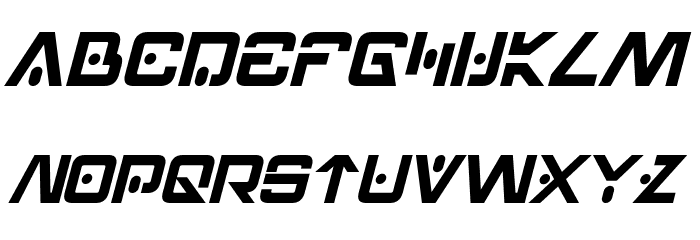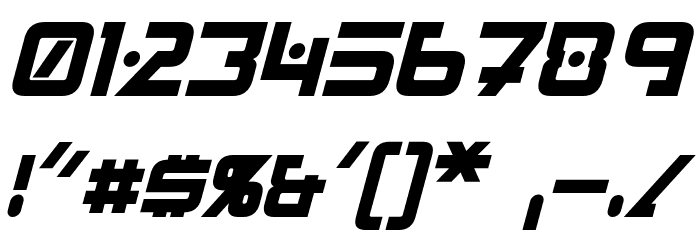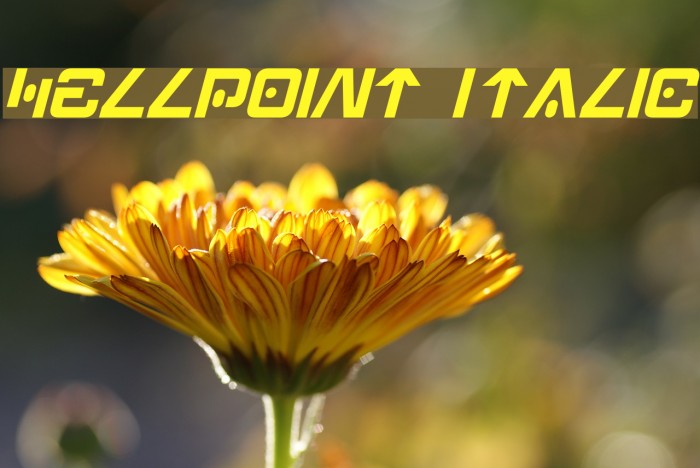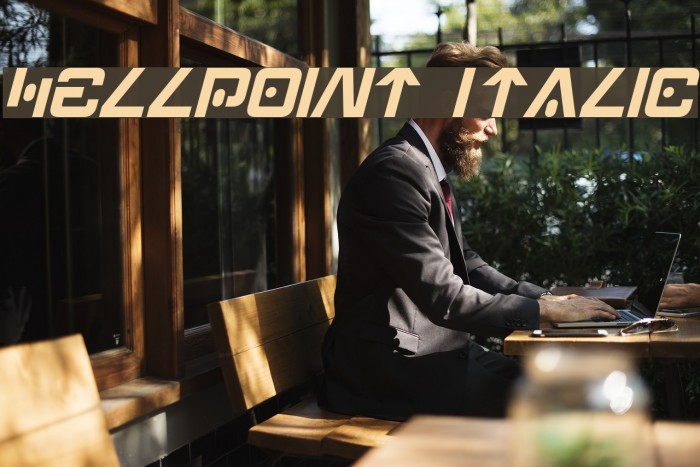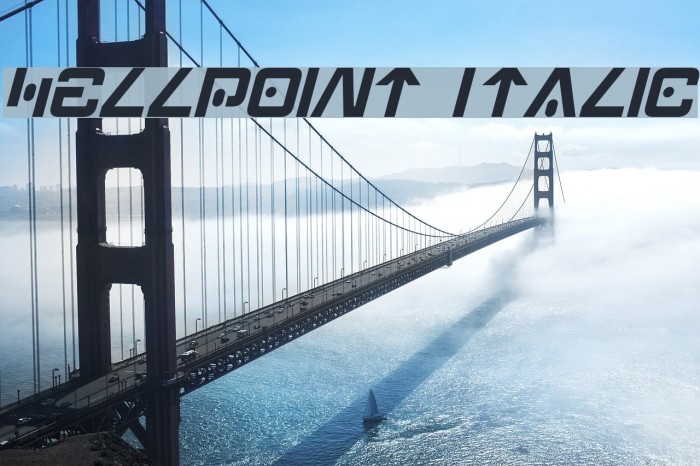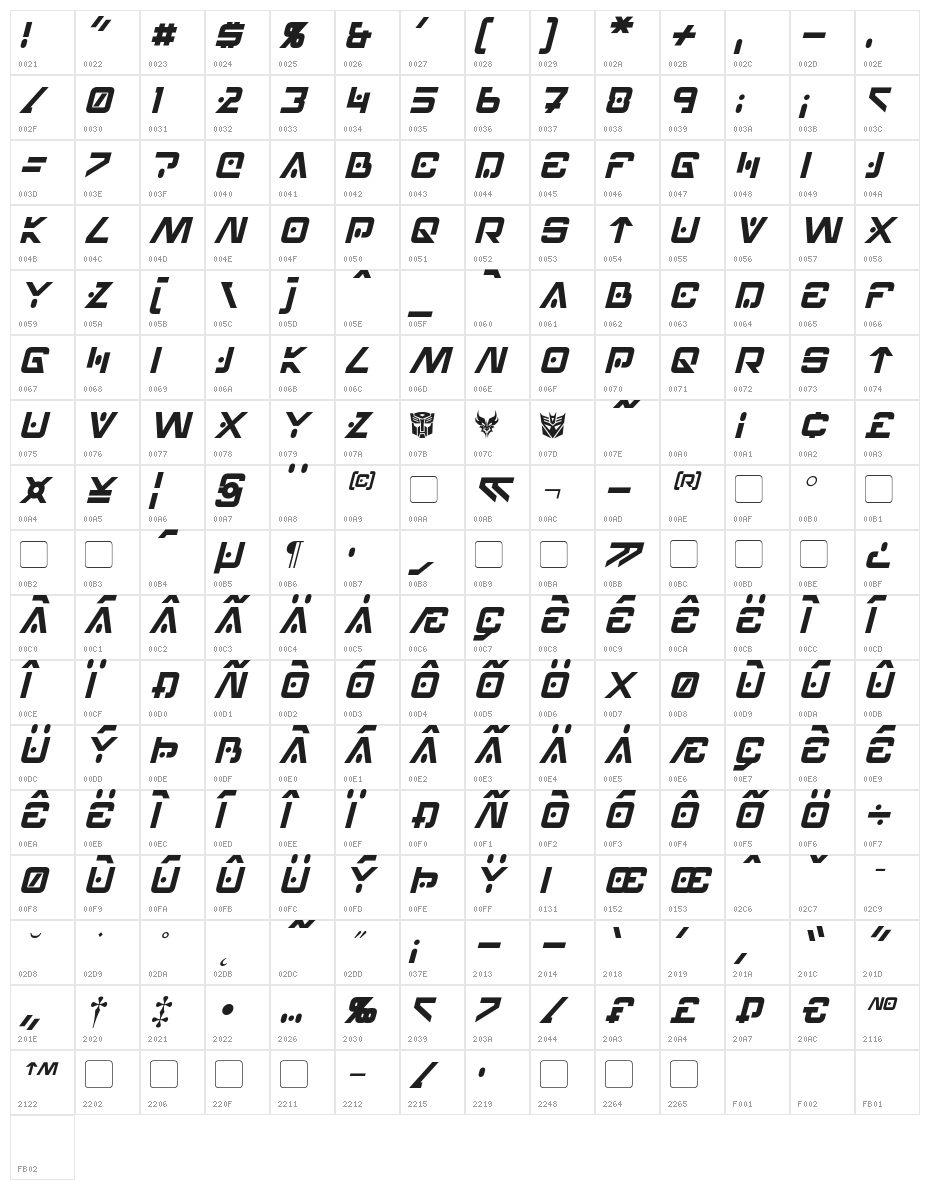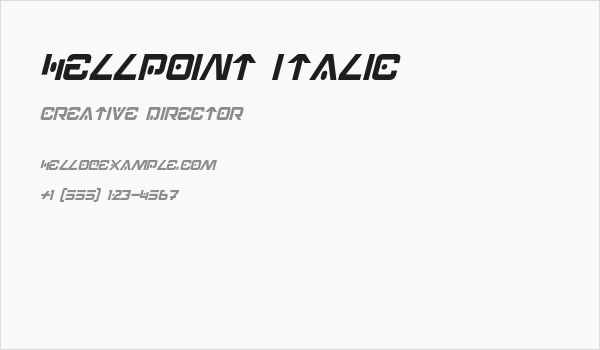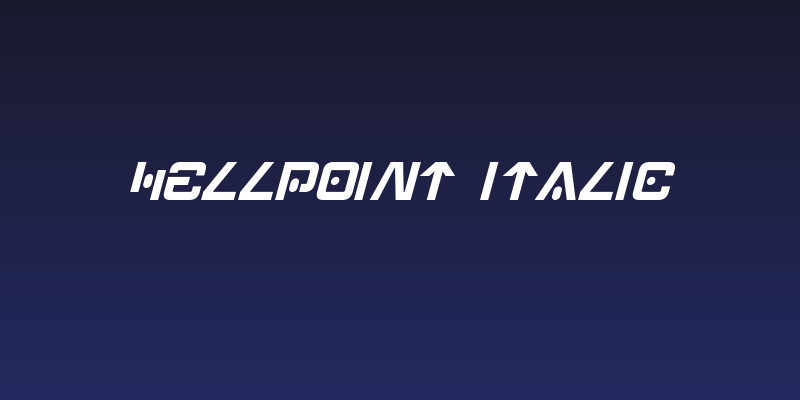
Hellpoint Italic Font
This font features a futuristic and dynamic design, characterized by its italicized and angular letterforms. The characters are bold with a distinct slant, giving a sense of motion and speed. The design incorporates unique geometric elements, such as sharp edges and cutouts, which add to its modern and edgy appearance. The uppercase and lowercase letters maintain a consistent style, while the numerals and special characters complement the overall aesthetic. This font is well-suited for projects that require a contemporary and tech-savvy look.
A bold, italicized font with a futuristic and angular design.
- Proposed Projects: Ideal for technology branding, video game titles, sci-fi movie posters, and modern advertising campaigns.